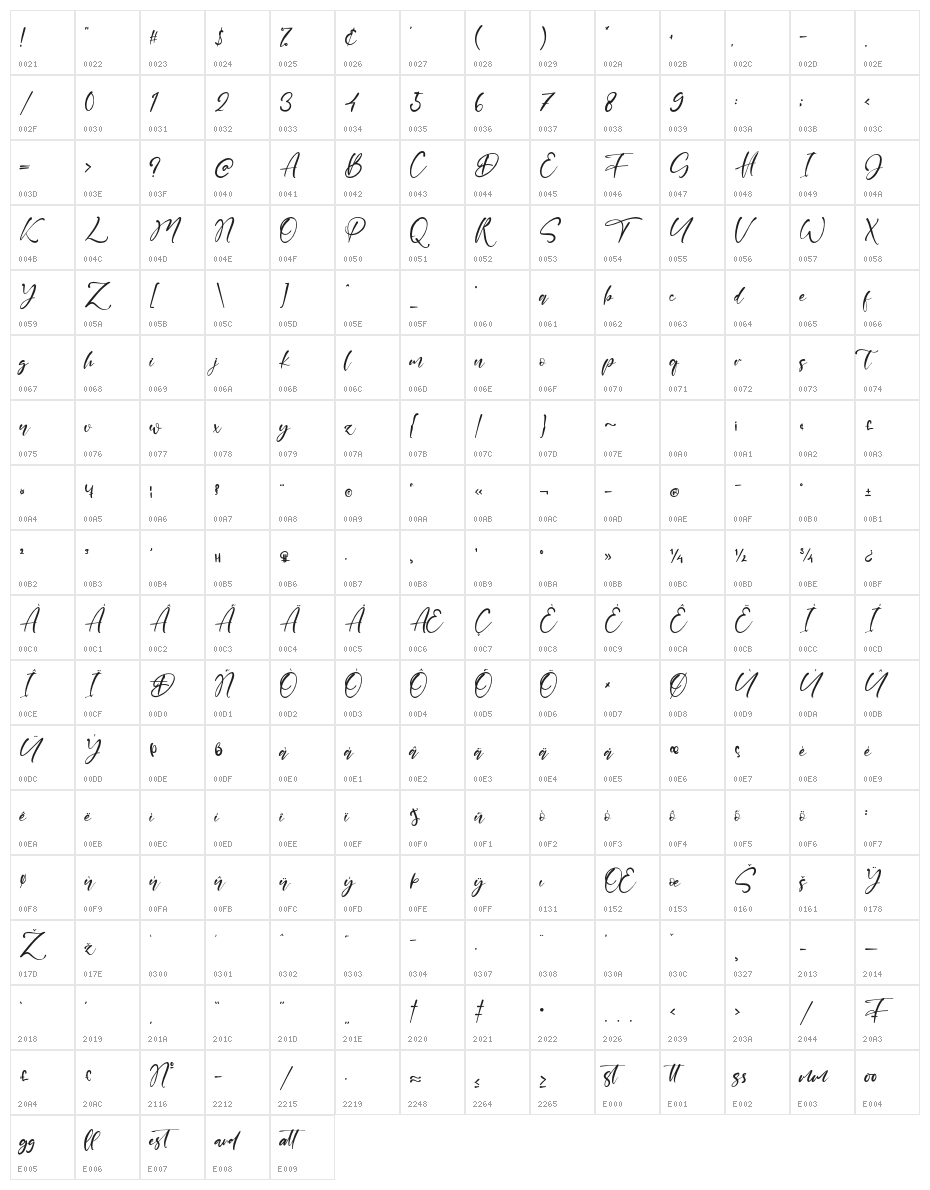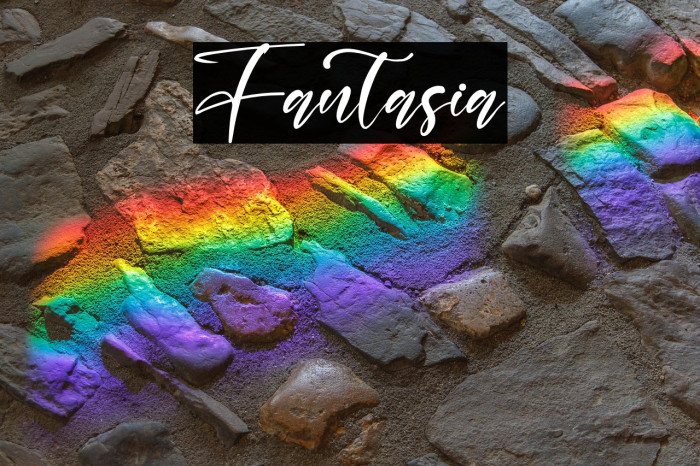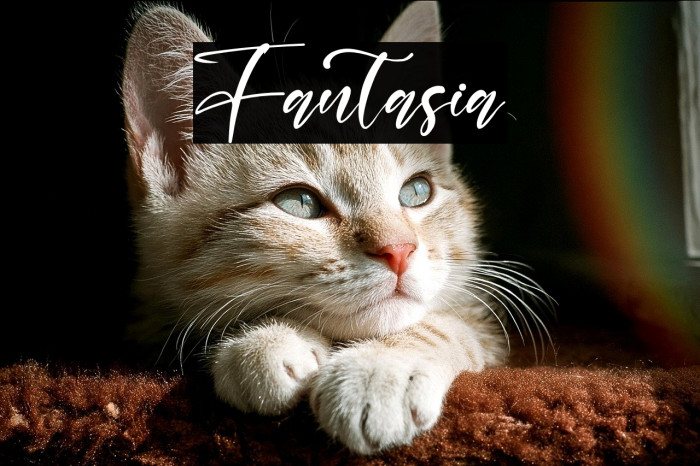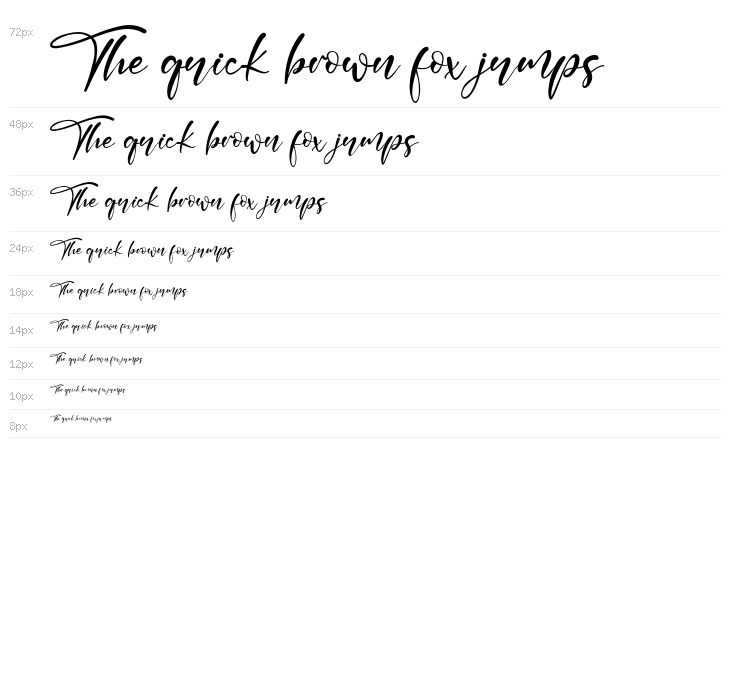
Fantasia Font
Fantasia Description
This font features an elegant and flowing script style, characterized by its smooth, cursive strokes and a sense of fluidity. The uppercase letters are bold and sweeping, with intricate loops and flourishes that add a touch of sophistication. The lowercase letters maintain a consistent style, with gentle curves and a slightly slanted orientation, enhancing the handwritten feel. The numerals are clear and stylish, matching the overall aesthetic with their graceful lines. Special characters are thoughtfully designed, complementing the font's artistic nature. This font exudes a sense of elegance and creativity, making it ideal for projects that require a personal and artistic touch.
| Overall Style | Elegant, Artistic |
| Proposed Projects | Ideal for wedding invitations, greeting cards, branding, and artistic projects that require a personal touch. |